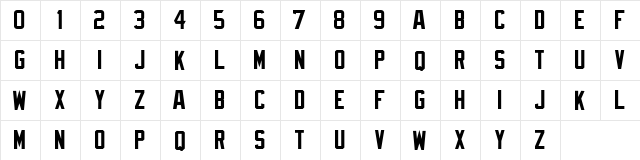
NFL Texans Regular
Design Context for NFL Texans Typeface
NFL Texans takes a measured approach to typography — its balanced proportions and neutral character make it a reliable workhorse for both digital and print work.